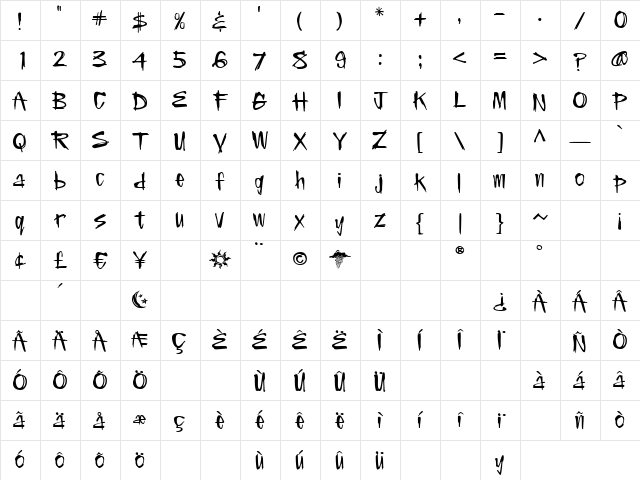
Complete ElNio Medium glyph index. Displaying only characters natively supported by ElNio Medium font.
ElNio is a composed and adaptable typeface that performs quietly and consistently across a wide range of design contexts.